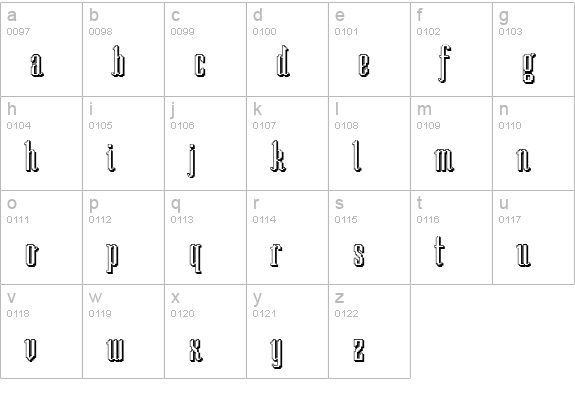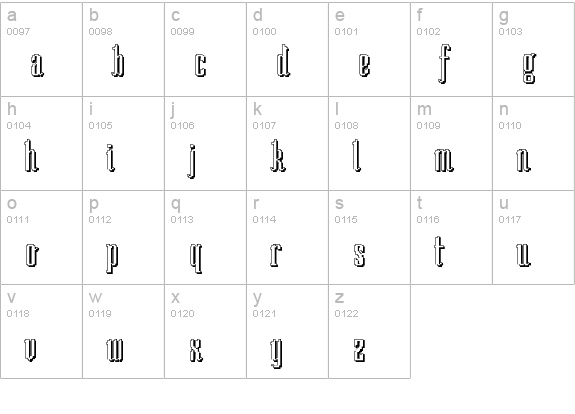
So Shady Font Details
Introducing So Shady, a mesmerizing and versatile font that will add a touch of intrigue and sophistication to any design project. With its unique blend of modern elegance and edgy personality, So Shady is the perfect choice for those seeking a font that stands out from the crowd. Designed with meticulous attention to detail, every curve and flourish of So Shady exudes class and creativity. Its slender and elongated letterforms create a sense of elegance and refinement, while the slightly curved lines add a hint of playfulness and intrigue. Whether you're designing a logo, crafting a headline, or creating eye-catching graphics, So Shady will effortlessly elevate your work to new heights. Its wide range of uppercase and lowercase letters, numerals, and punctuation marks provide endless possibilities for creative expression. But the best part? So Shady is completely free! That's right, this stunning font is freely available to download at FontsMarket.com. Now you can enhance your designs without breaking the bank. So Shady is the epitome of style and value, making it the perfect choice for designers, artists, and creatives on a budget. So why wait? Download So Shady today and experience the power of this extraordinary font. Let your designs shine with its unique charm and undeniable allure. Whether you're designing for print or digital, So Shady will captivate your audience and leave a lasting impression. Don't miss out on this incredible opportunity to elevate your creative projects with a font that is as stylish as it is free. Get So Shady now, exclusively at FontsMarket.com.